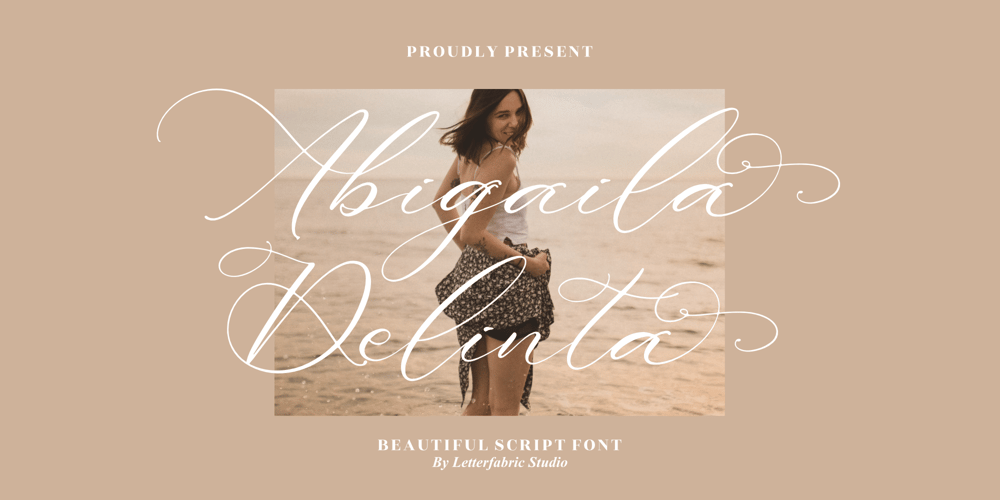
Abigaila Delinta Font Family was designed by Heru Utama Putra and published by Letterena Studios. Abigaila Delinta contains 2 styles and family package options. Abigaila Delinta feels equally charming and elegant. It will add a luxury spark to any design project that you wish to create! This font is PUA encoded which means you can access all of the amazing glyphs and ligatures with ease!